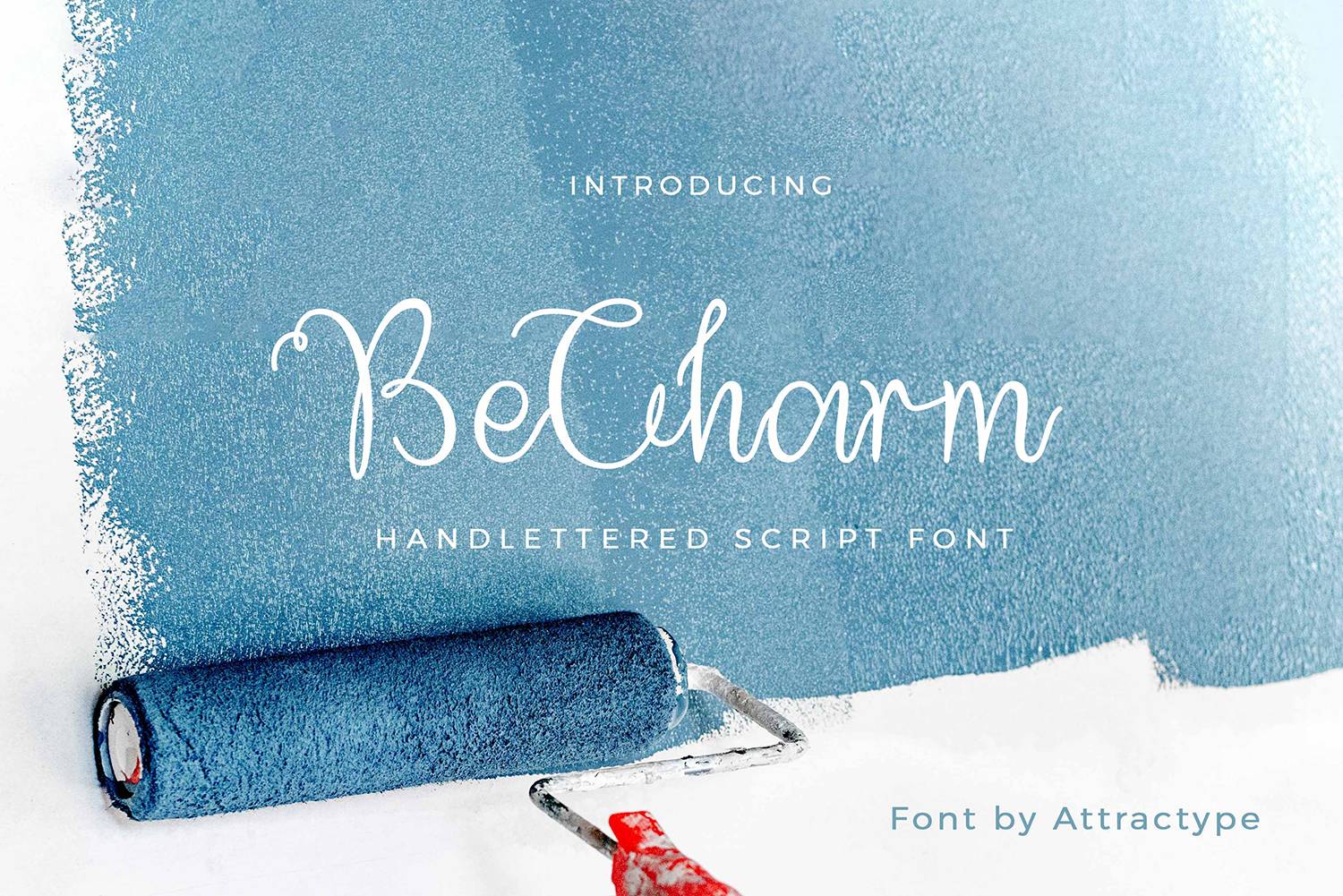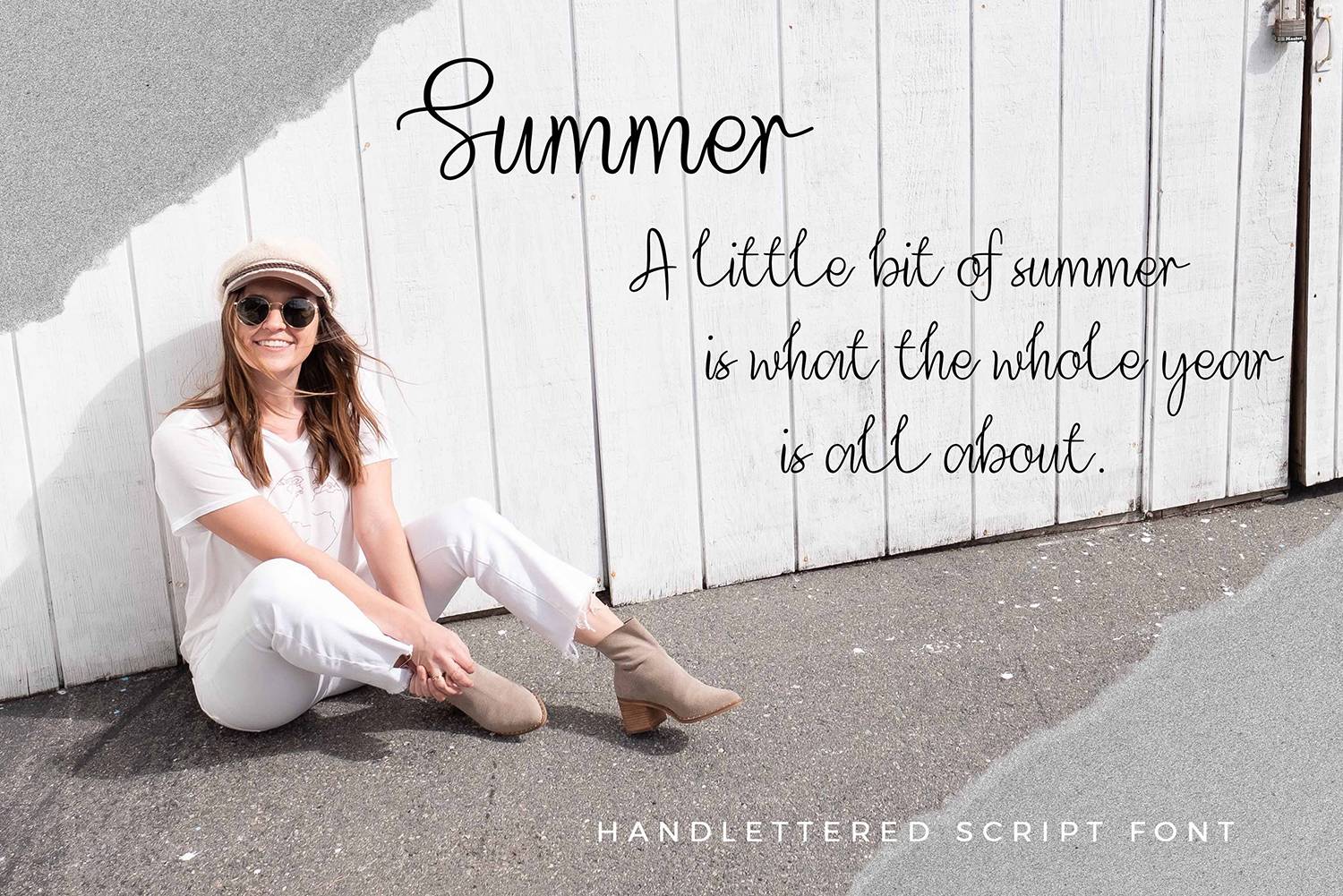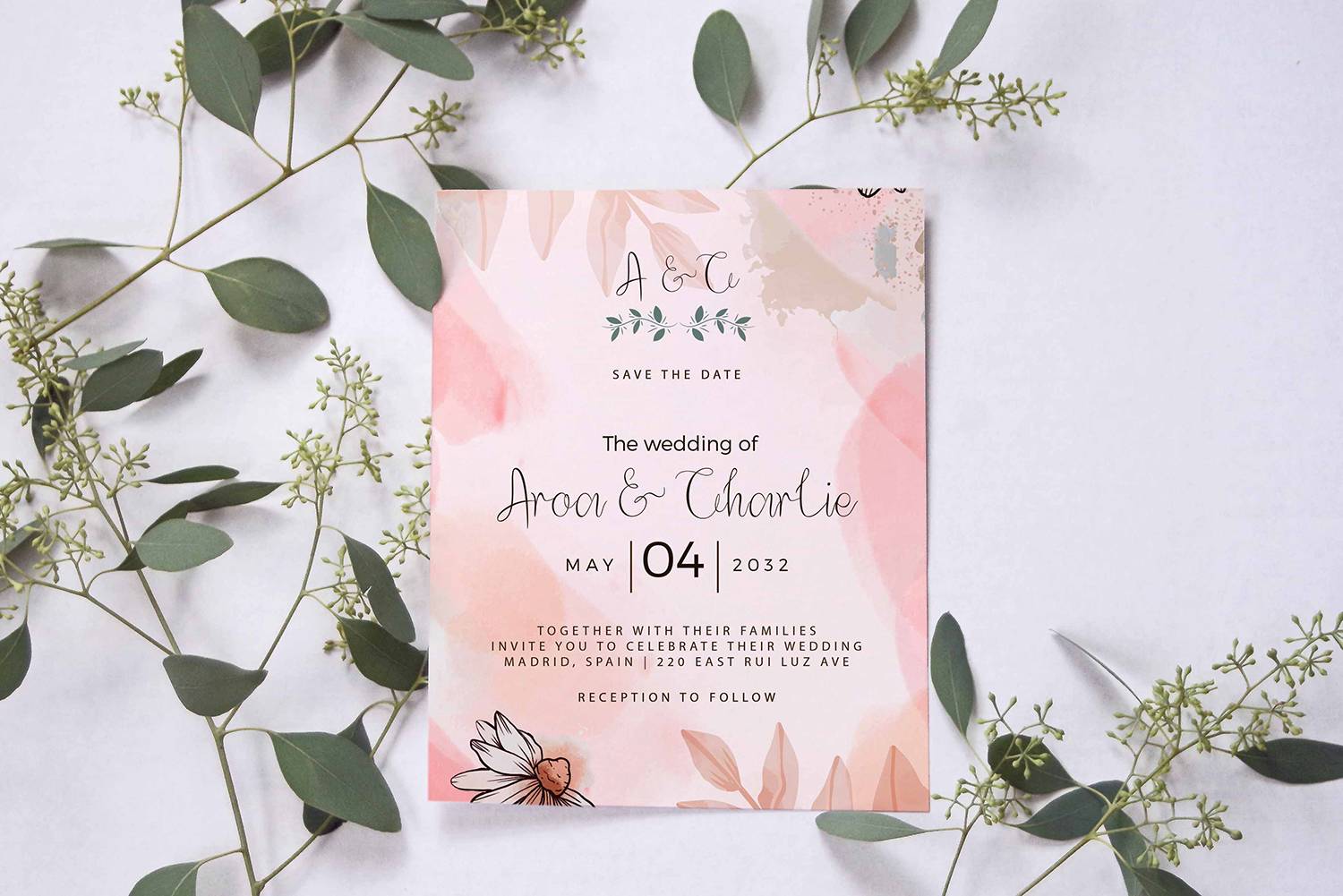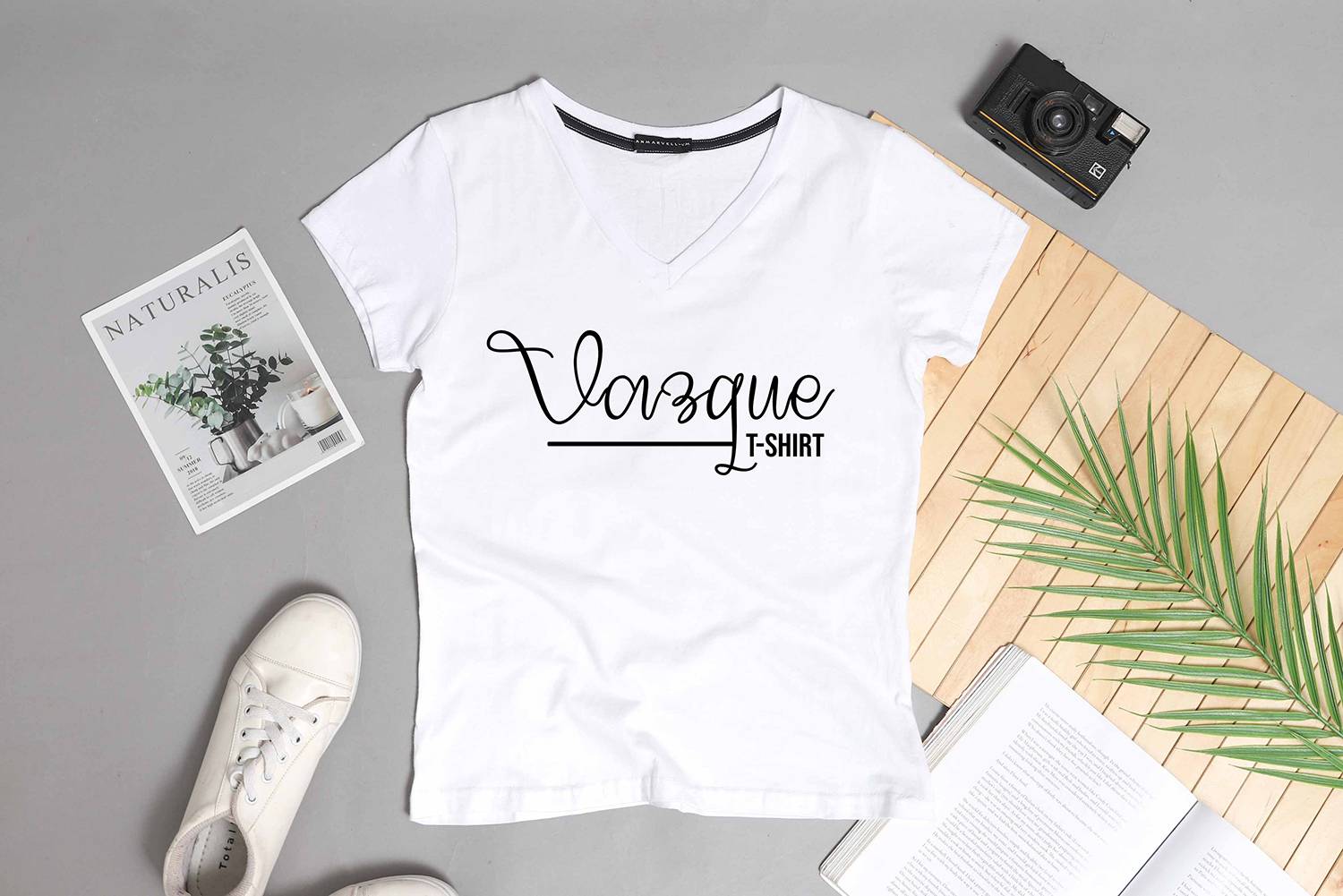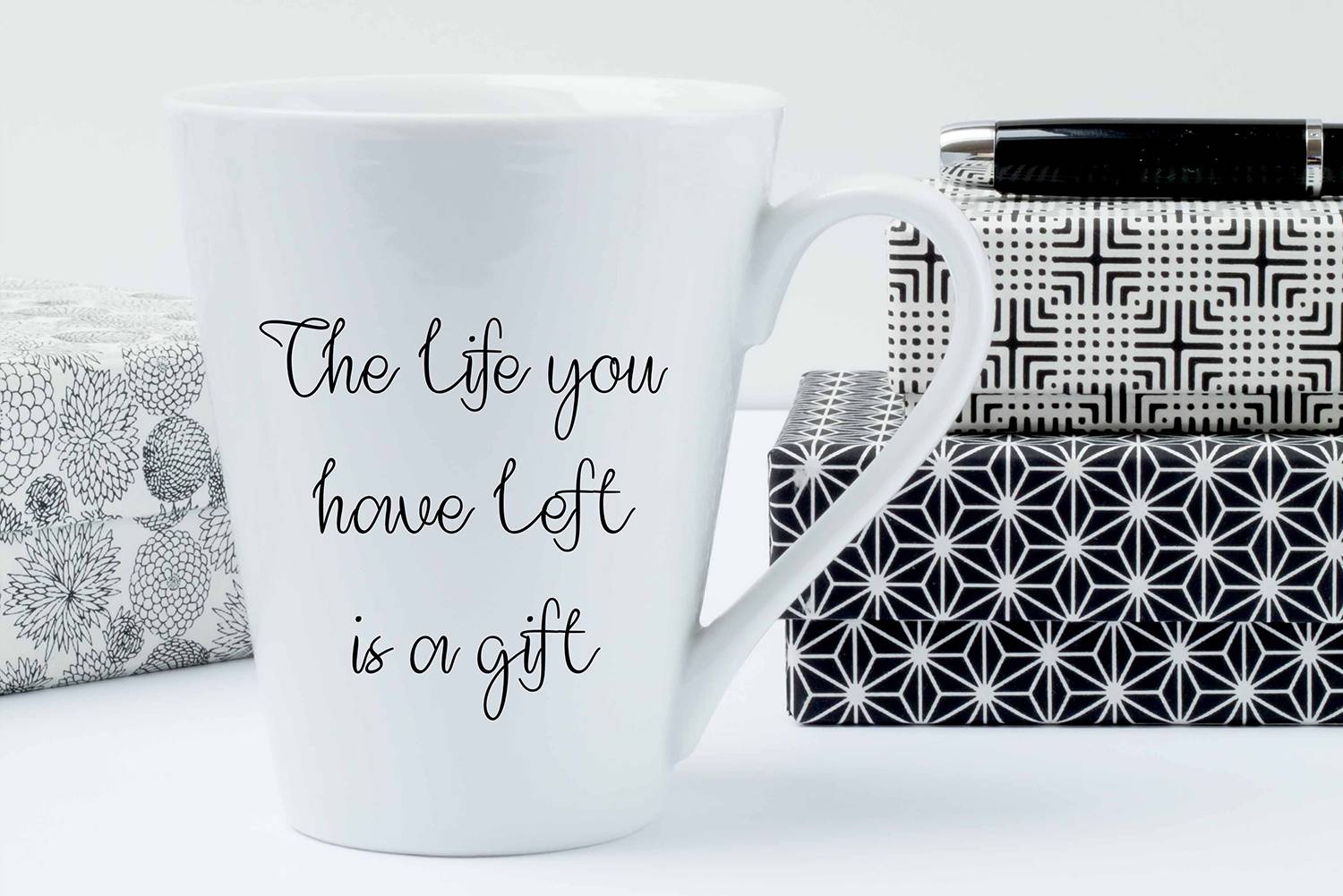
BeCharm is a delicate, handwritten script font characterized by its thin, flowing strokes and whimsical loops, giving it an elegant yet playful feel. Its light weight and airy letterforms make it ideal for creative projects that need a personal, charming touch, such as invitations, branding for boutique or feminine products, and artistic headlines. This font works best in display settings where its unique style can truly shine without compromising readability.
BeCharm Font
About BeCharm Font
| Font family | BeCharm Font |
| Designer | Saefulloh |